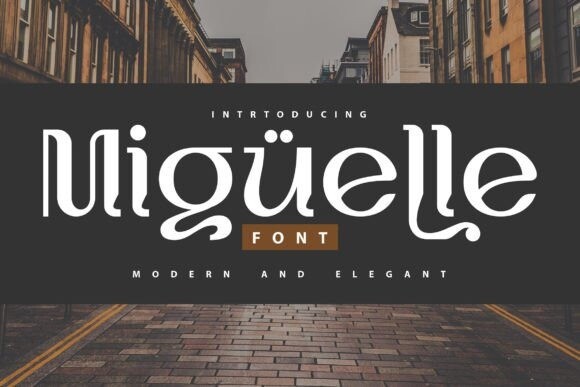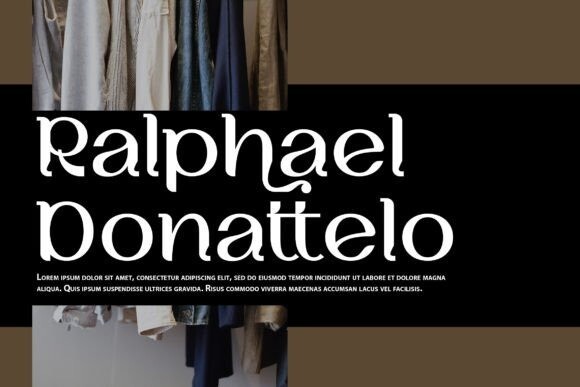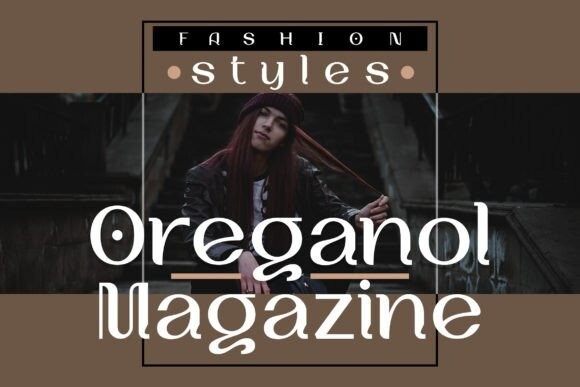
Miguelle Font
Miguelle is a modern and elegant slab serif font. It is suitable for many of your visual needs such as fashion, greeting cards, branding projects, business cards, quotes, posters, and more!